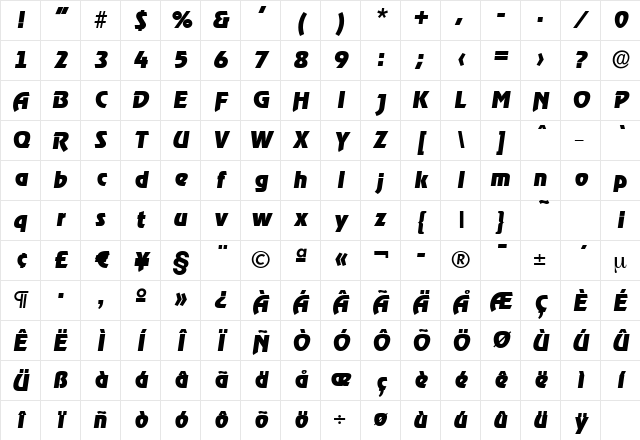
JoeBecker-Heavy Italic
Design Context for JoeBecker-Heavy
JoeBecker-Heavy is a composed and adaptable typeface that performs quietly and consistently across a wide range of design contexts. The slanted form adds forward momentum and visual energy.
Pro Tip: Use JoeBecker-Heavy for emphasis, pull quotes, and subheadings where its slanted energy can add rhythm to the layout.